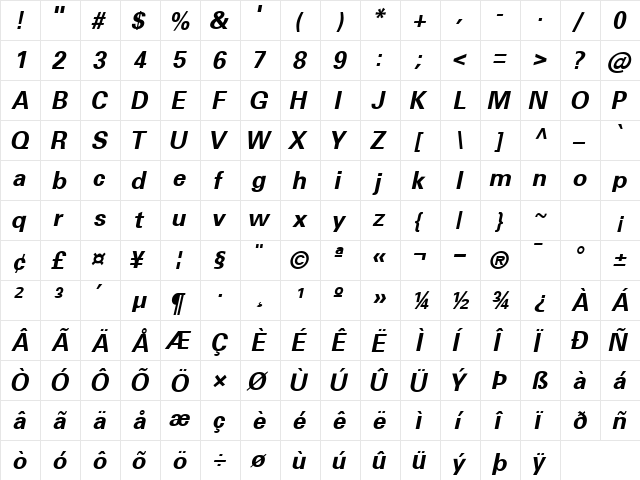
NovaSSK Bold Italic
Design Context for NovaSSK Typeface
NovaSSK is a composed and adaptable typeface that performs quietly and consistently across a wide range of design contexts. Its italic angle brings a sense of urgency and motion to the letterforms. Its bold stroke weight gives it real presence on the page.
Pro Tip: Use NovaSSK for emphasis, pull quotes, and subheadings where its slanted energy can add rhythm to the layout.